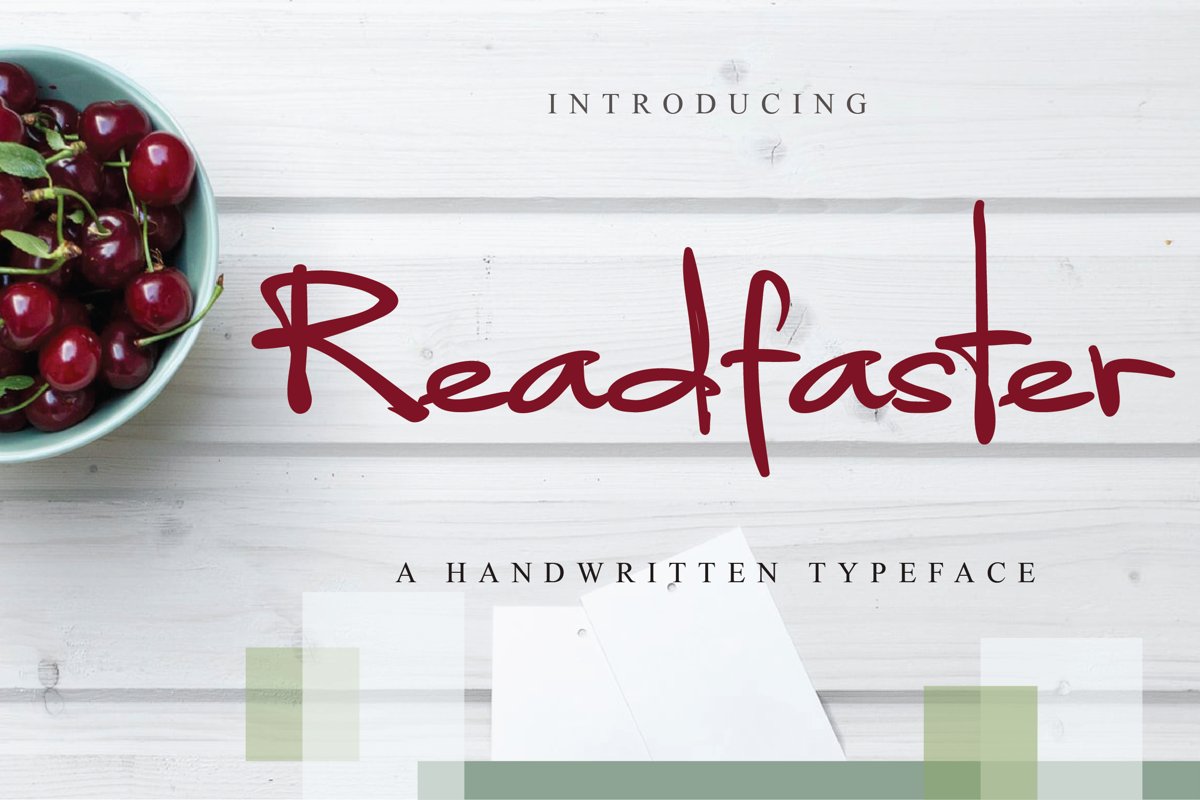
Readfaster
Introducing a new handwritten typeface, It is suitable for your needs, such as for clothing brands, Cafe brands, food brands, advertising slogans, food packaging designs, wise words, instagram ads, youtube main preview. All ad elements are suitable for this Font.